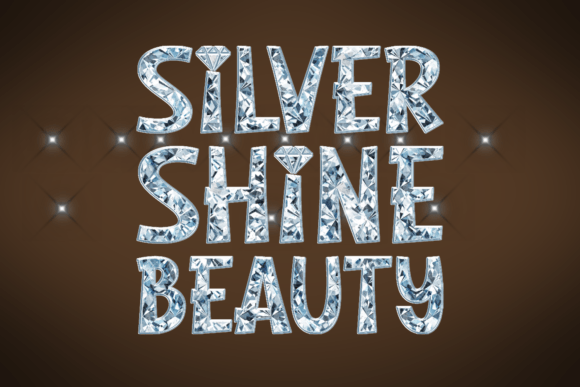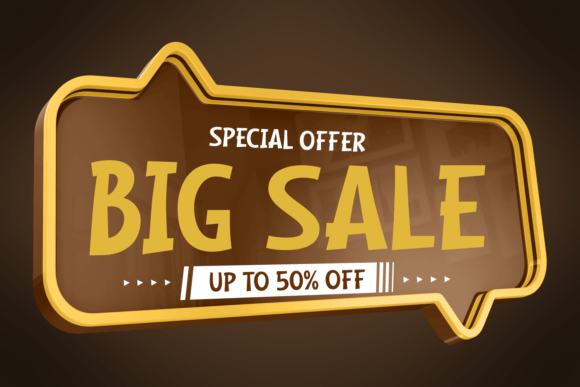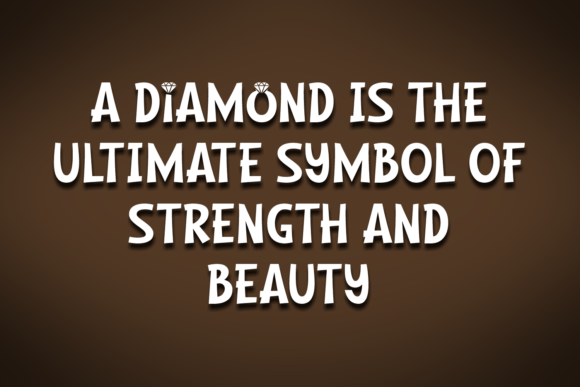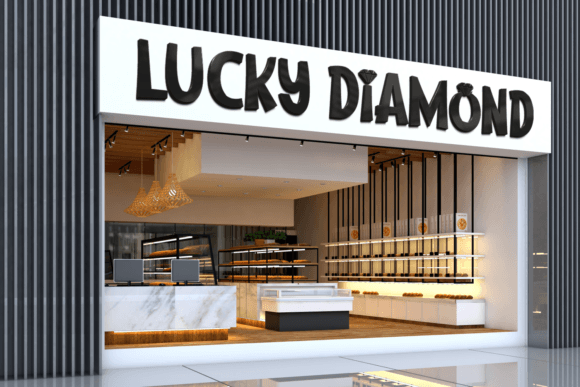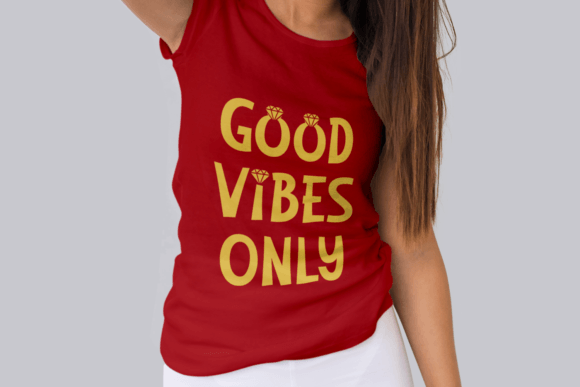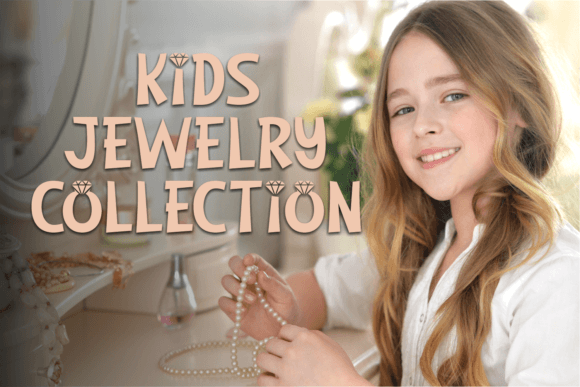
Diamond Cartoon Font: Adding a Touch of Whimsy to Your Designs
In the world of typography, fonts play a crucial role in conveying the tone and personality of a design. If you’re looking for a font that exudes fun, playfulness, and charm, look no further than the Diamond Cartoon Font. This delightful display font is perfect for designers and crafters who want to add a touch of whimsy to their projects.
The Characteristics of Diamond Cartoon Font
Diamond Cartoon Font is a cute and charming display font that boasts a comic font and comic book nuances. Its bold and playful aesthetics make it an ideal choice for designs that require a bit of lightheartedness. The font’s strong aura captures attention and mesmerizes the audience, making it perfect for a wide range of applications.
A Kids Font with a Strong Personality
Diamond Cartoon Font is also a perfect embodiment of a kids font. Its playful and bold design makes it an excellent choice for designs aimed at children. However, its power and charm cannot be denied, making it suitable for a wide range of designs, from children’s products to high-end branding.
A Trendy Addition to Your Design Toolkit
In the world of design, fonts are an essential element that can make or break a project. Diamond Cartoon Font is a trendy addition to any design toolkit, shining brilliantly amidst its contemporaries. Its versatility and charm make it an excellent choice for designers who want to add a touch of personality to their designs.
Using Diamond Cartoon Font in Your Designs
Diamond Cartoon Font excels when used as a product font, immediately elevating any design it’s part of. Imagine it sprawled across a stylish t-shirt or gently accenting a piece of high-end jewelry. The font’s versatility makes it perfect for a wide range of applications, from branding and packaging to advertising and marketing materials.
The Benefits of Using Diamond Cartoon Font
- Unique and eye-catching: Diamond Cartoon Font is a one-of-a-kind font that captures attention and mesmerizes the audience.
- Versatile: The font’s versatility makes it perfect for a wide range of designs, from children’s products to high-end branding.
- Playful and fun: Diamond Cartoon Font adds a touch of whimsy to any design, making it perfect for designs that require a bit of lightheartedness.
- Easy to read: The font’s bold and clear design makes it easy to read, even at small sizes.
Tips for Using Diamond Cartoon Font
To get the most out of Diamond Cartoon Font, here are a few tips to keep in mind:
- Use it sparingly: While Diamond Cartoon Font is a beautiful font, it’s best used sparingly to avoid overwhelming the design.
- Pair it with a neutral font: Pairing Diamond Cartoon Font with a neutral font can help create a balanced design.
- Experiment with colors: The font’s bold design makes it perfect for experimenting with different colors and gradients.
Diamond Cartoon Font is a charming and versatile display font that adds a touch of whimsy to any design. Its bold and playful aesthetics make it perfect for a wide range of applications, from children’s products to high-end branding. With its unique and eye-catching design, Diamond Cartoon Font is sure to capture attention and mesmerize the audience. Whether you’re a designer or crafter, this font is a trendy addition to any design toolkit.
So why not give Diamond Cartoon Font a try? With its ease of use and versatility, it’s the perfect choice for designers and crafters who want to add a bit of personality to their designs.